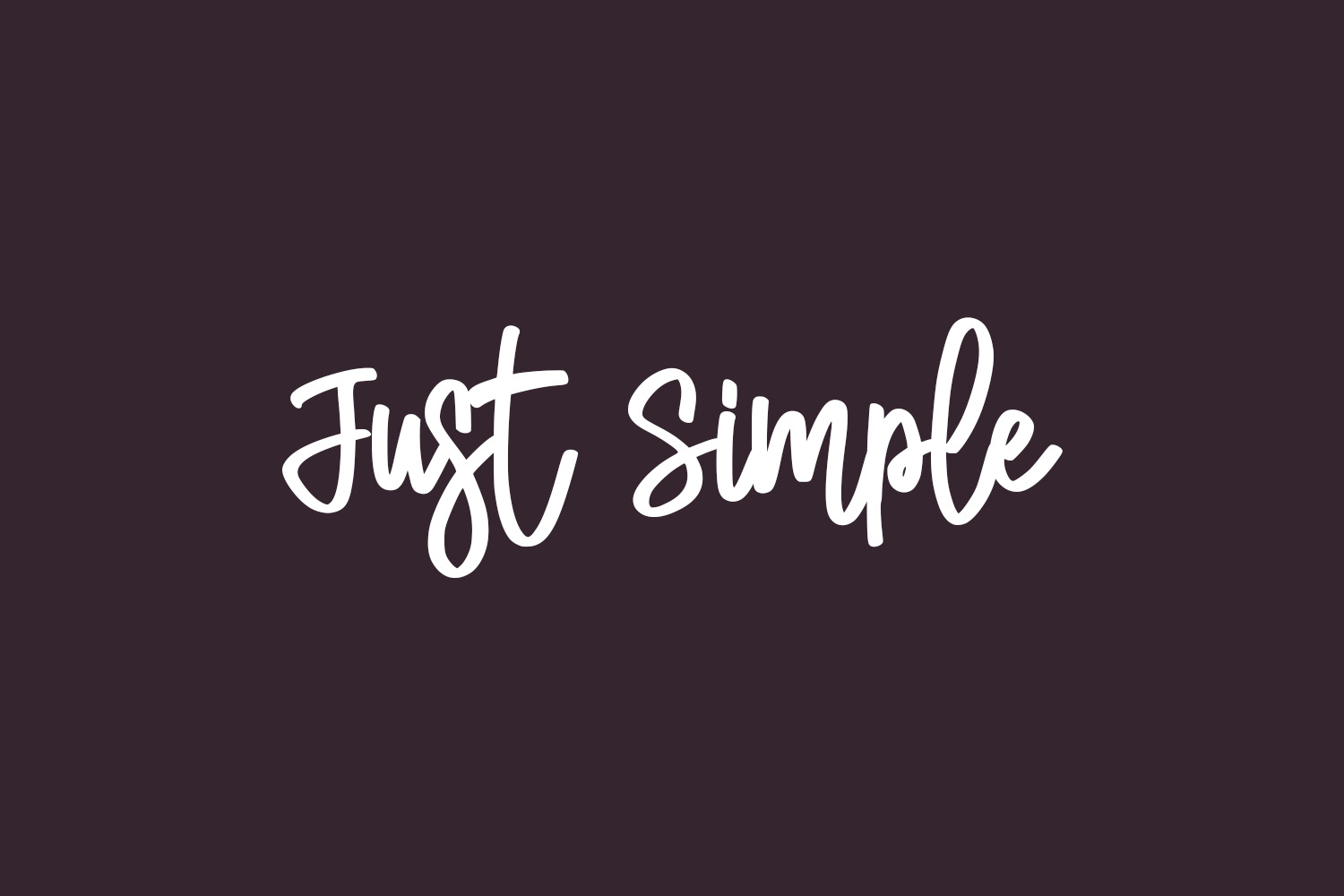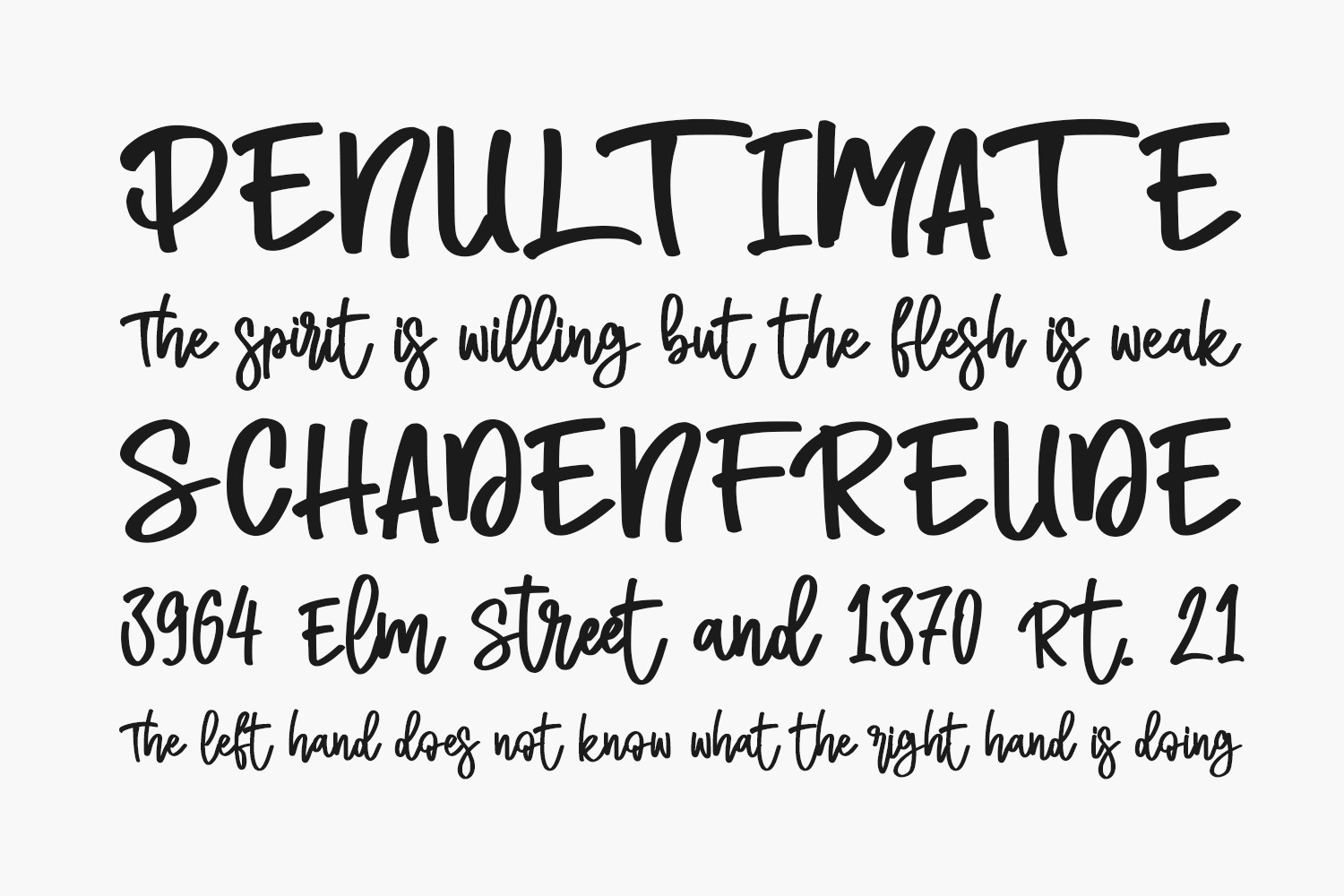
Just Simple Free Font is a natural and friendly handwritten font. No matter the topic, this font will be an incredible asset to your fonts’ library, as it has the potential to elevate any creation. Just Simple Free Font was designed by Stefani Letter and is free for personal use only. Please purchase the full version for commercial use.